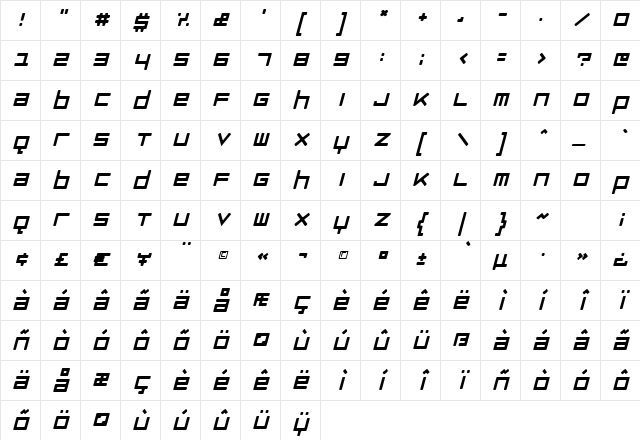
Razer Oblique Regular
Design Context for Razer Oblique
Razer Oblique is a composed and adaptable typeface that performs quietly and consistently across a wide range of design contexts. The slanted form adds forward momentum and visual energy.